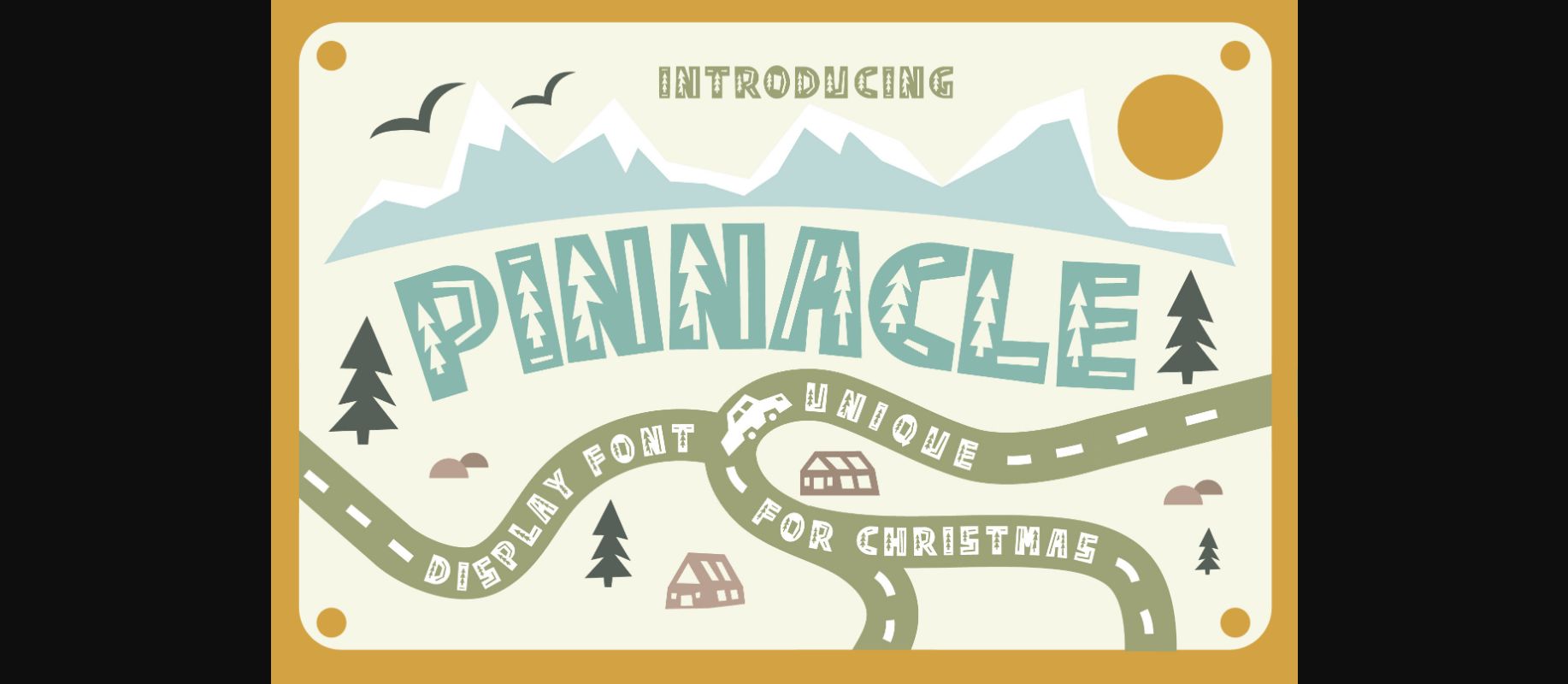
About Pinnacle Font
Pinnacle is a fun and crafty decorative font. Whether you’re using it for digital design, presentations, or making greeting cards, this font has the potential to become your favorite go-to font, no matter the occasion!